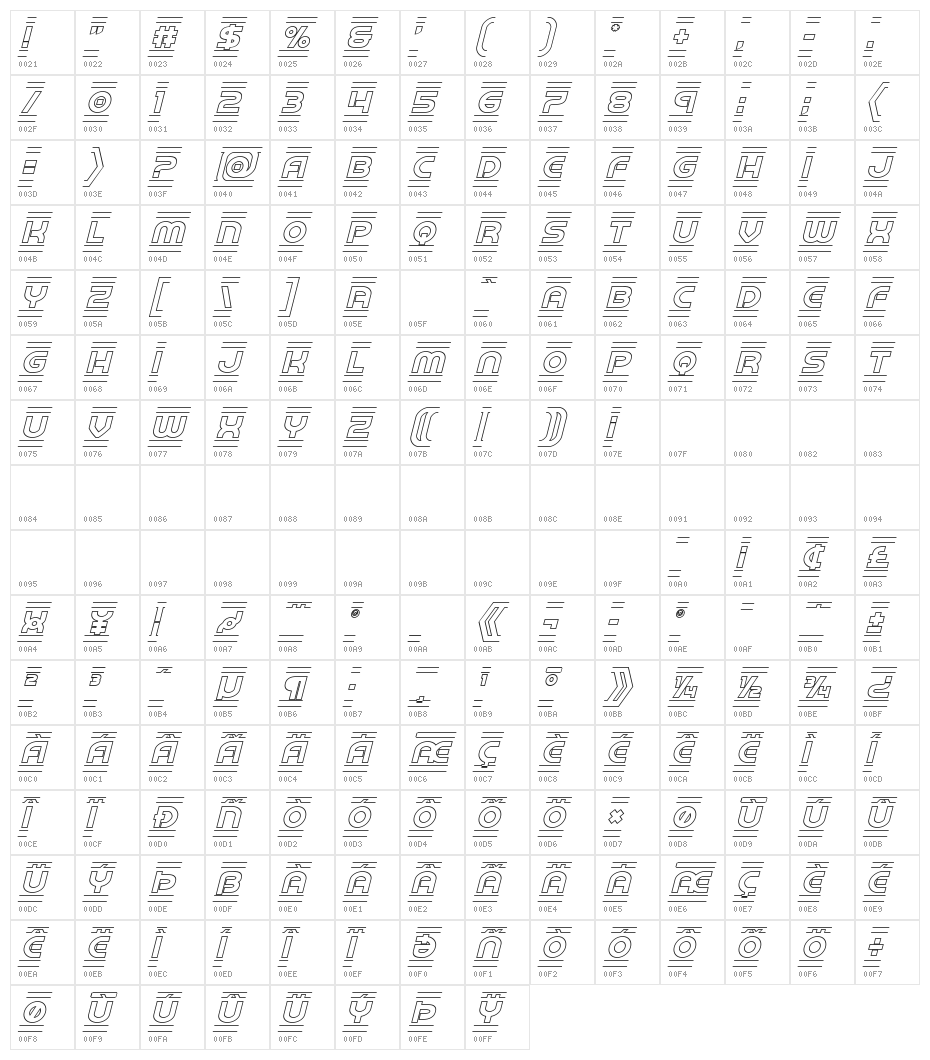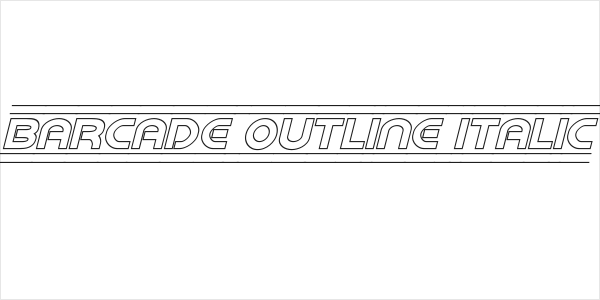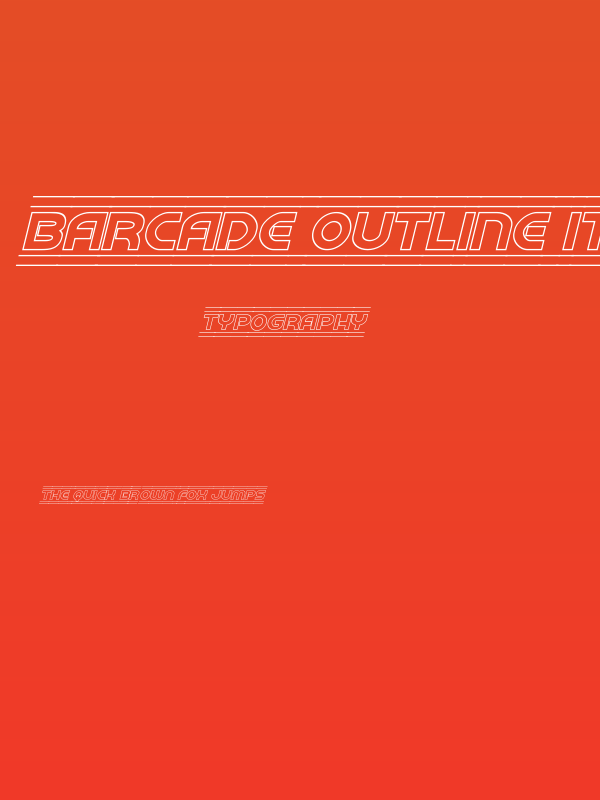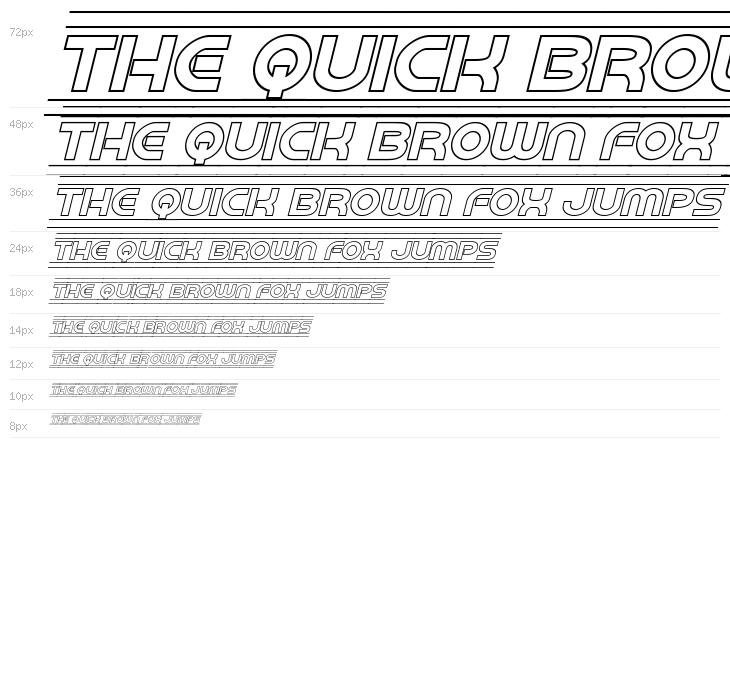
Barcade Outline Italic Font
Barcade Outline Italic Description
This font features a bold, outlined style with a futuristic and dynamic appearance. The characters are italicized, giving them a sense of movement and speed. Each letter is crafted with precision, maintaining a consistent width throughout. The outline effect adds depth and dimension, making the text stand out prominently. The font includes a full set of uppercase letters, numbers, and a variety of special characters, all designed to maintain the cohesive aesthetic. The clean lines and geometric shapes contribute to its modern and sleek look, making it suitable for projects that require a bold and eye-catching typeface.